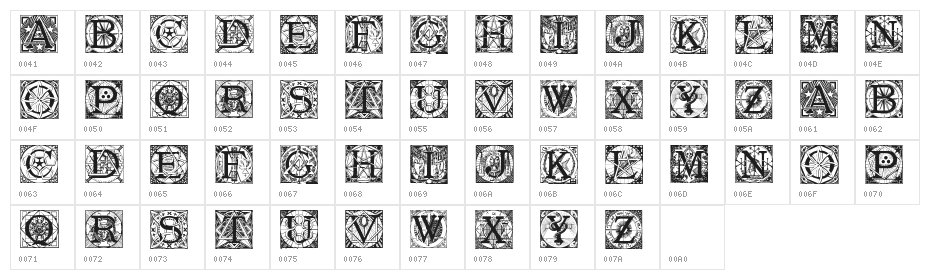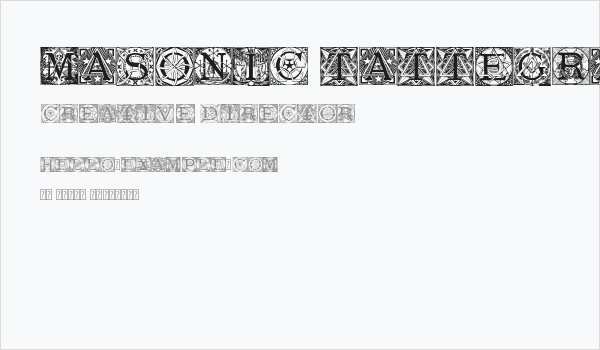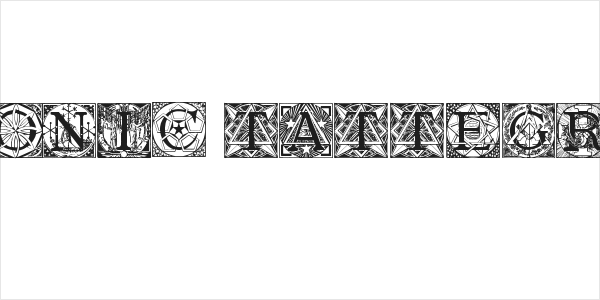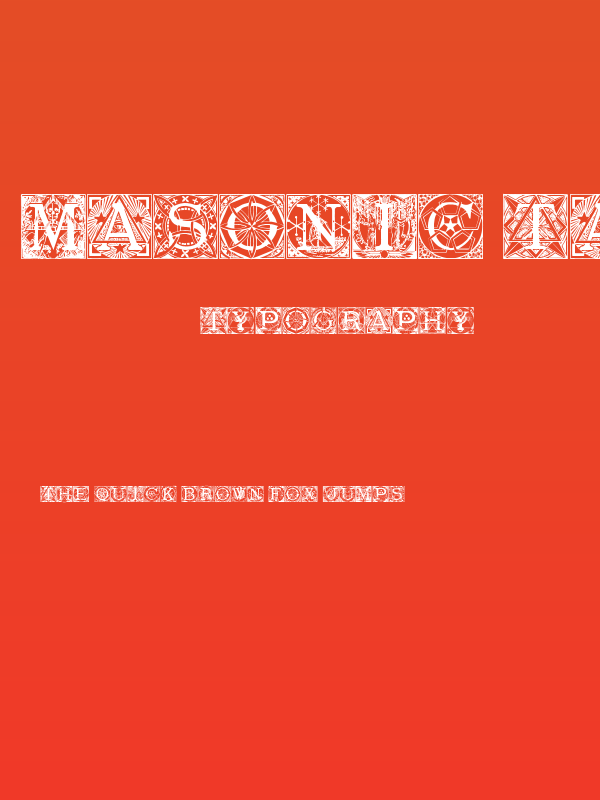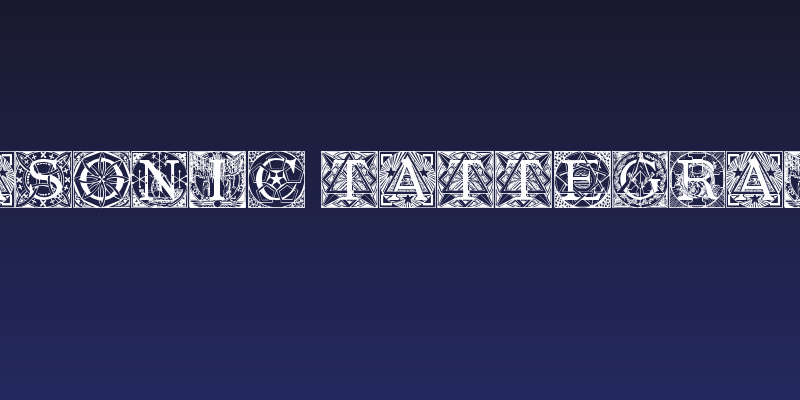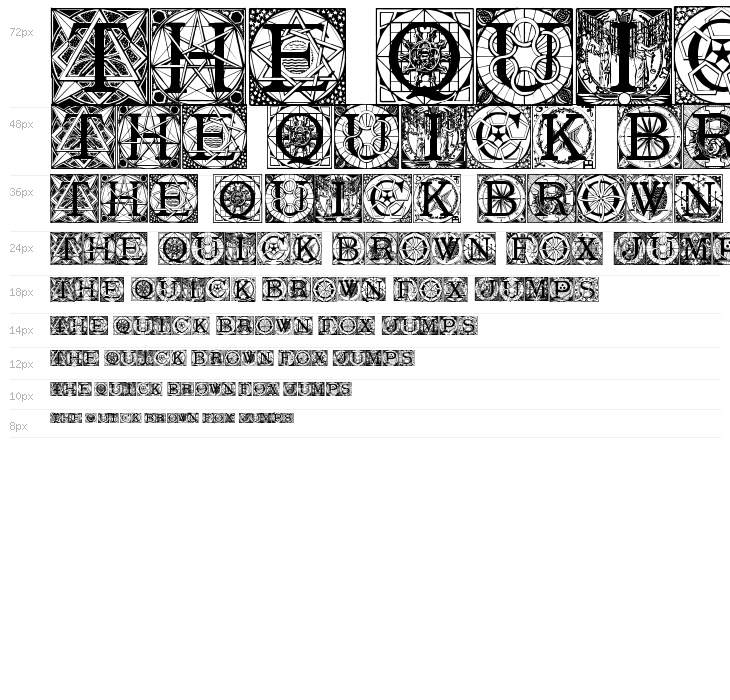
Masonic Tattegrain Font
Masonic Tattegrain Description
This font features an intricate and decorative design, with each letter enclosed in a square frame filled with elaborate geometric and symbolic patterns. The style is reminiscent of Masonic or esoteric iconography, with a strong emphasis on symmetry and detail. The letters are bold and highly stylized, making them stand out as individual pieces of art. The overall appearance is both mysterious and captivating, suitable for projects that require a touch of the arcane or historical. The font is not suitable for body text due to its complexity but excels in decorative and thematic applications.
Use CaseLogos, Headlines, Decorative elements
Proposed ProjectsIdeal for themed posters, book covers, or any project requiring a mystical or historical aesthetic.